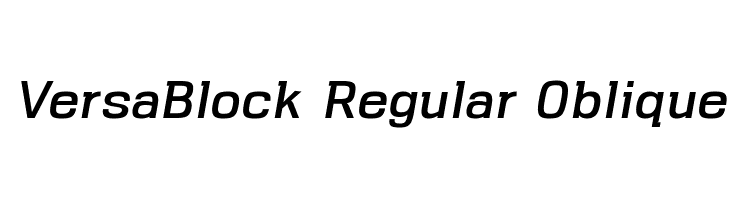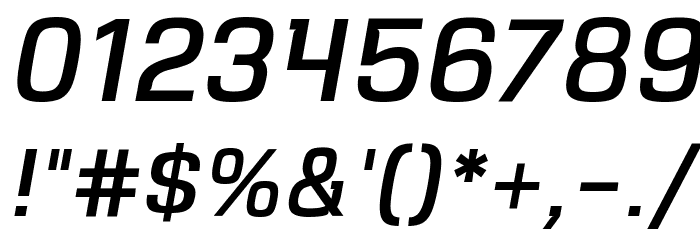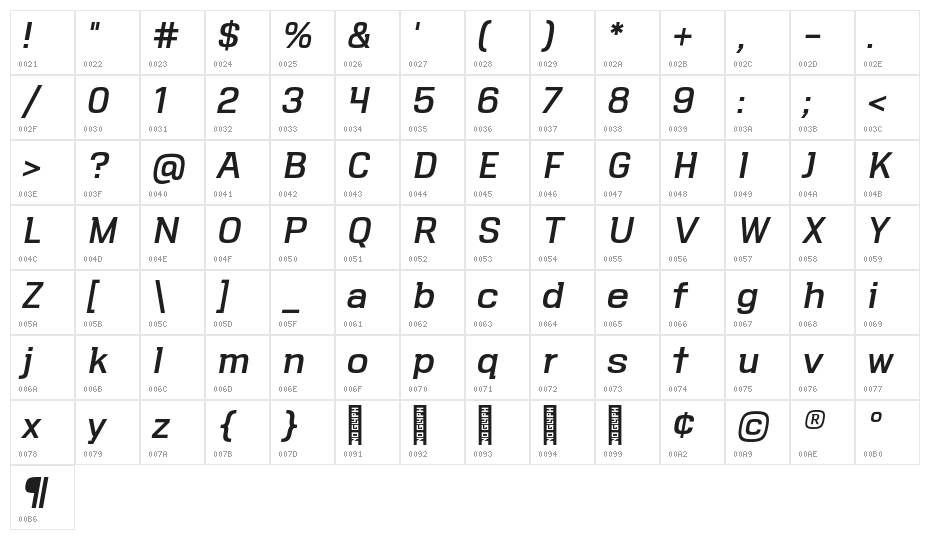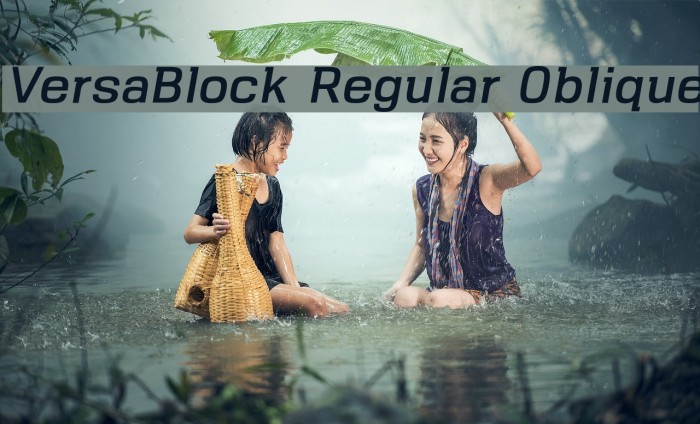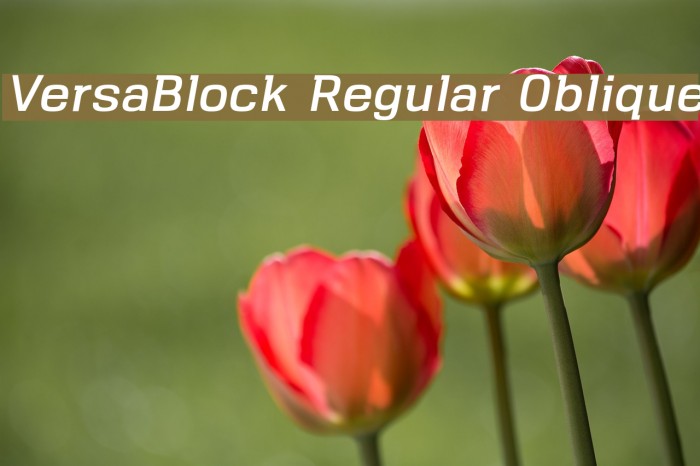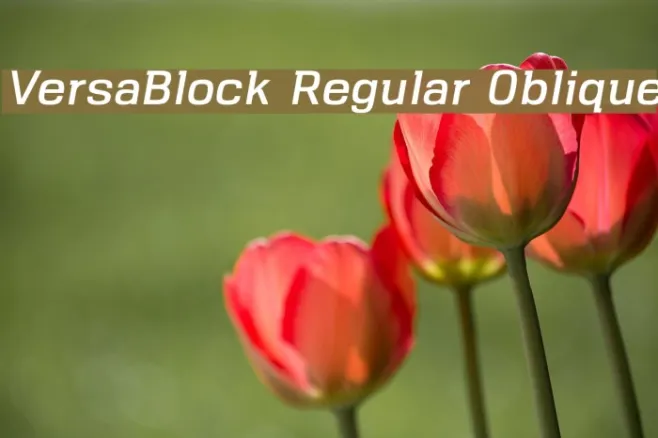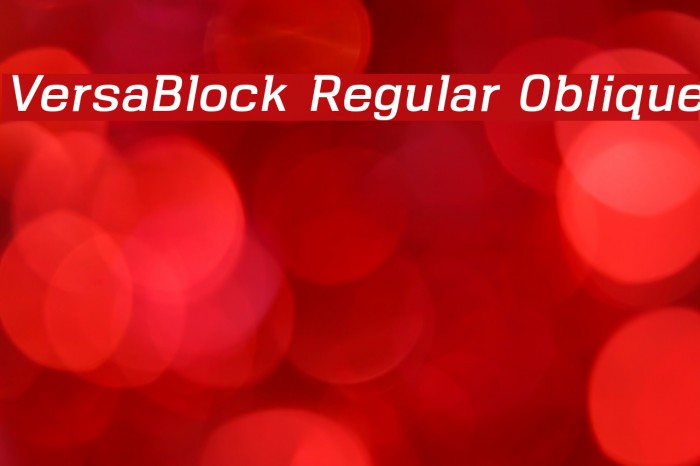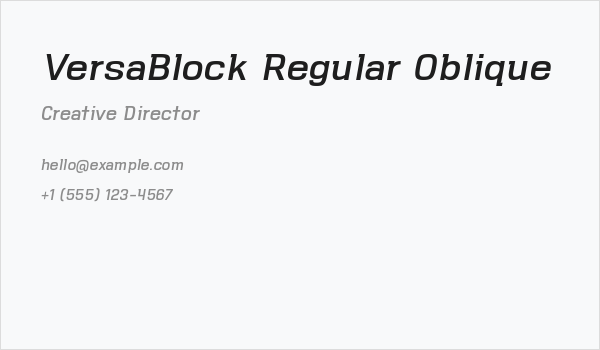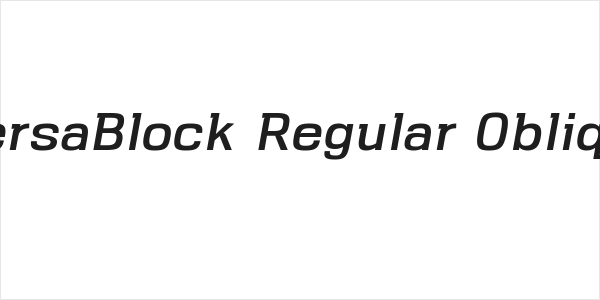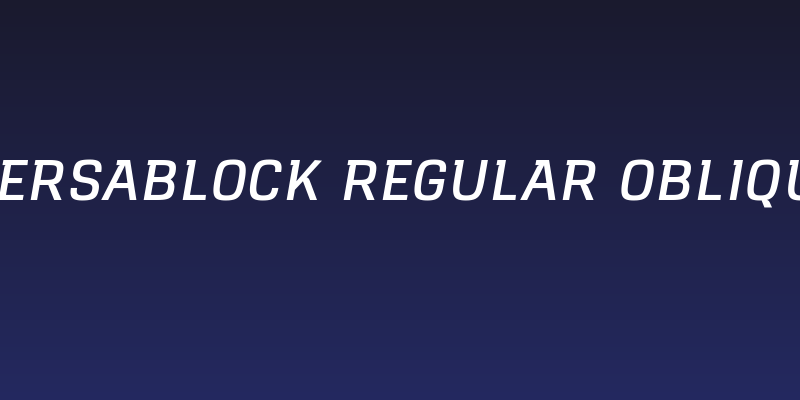
VersaBlock Regular Oblique Font
VersaBlock Regular Oblique Description
This font features a modern and sleek design with an oblique style, giving it a dynamic and forward-leaning appearance. The characters are well-defined with a consistent stroke width, providing a clean and professional look. The uppercase and lowercase letters maintain a uniform height, enhancing readability. The numerals are distinct and align well with the overall style, ensuring clarity in numerical data presentation. Special characters are crafted with precision, complementing the font's aesthetic. This font is versatile, suitable for various applications where a contemporary and stylish impression is desired.
Use CaseHeadlines, Logos, Digital Media
Proposed ProjectsIdeal for branding, advertising, digital media, and editorial design projects.